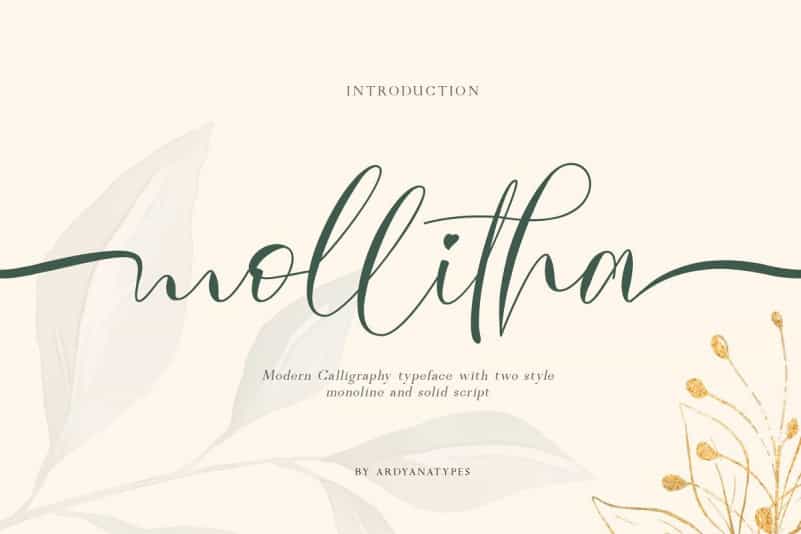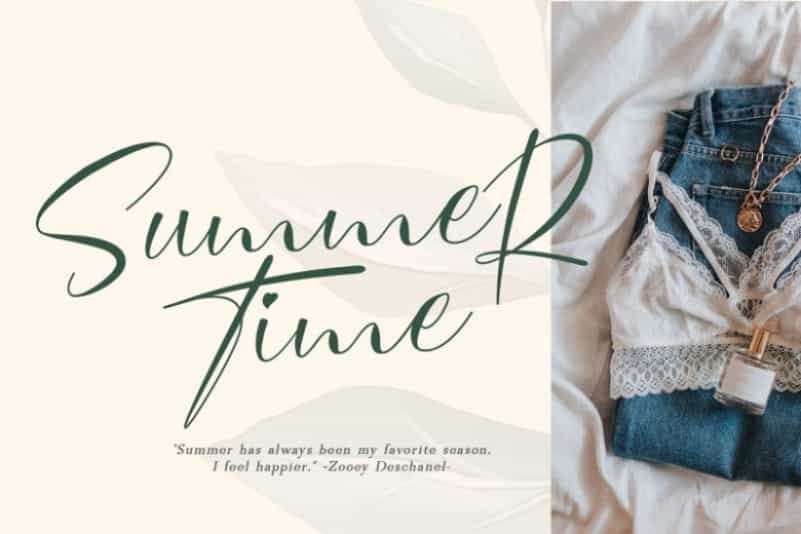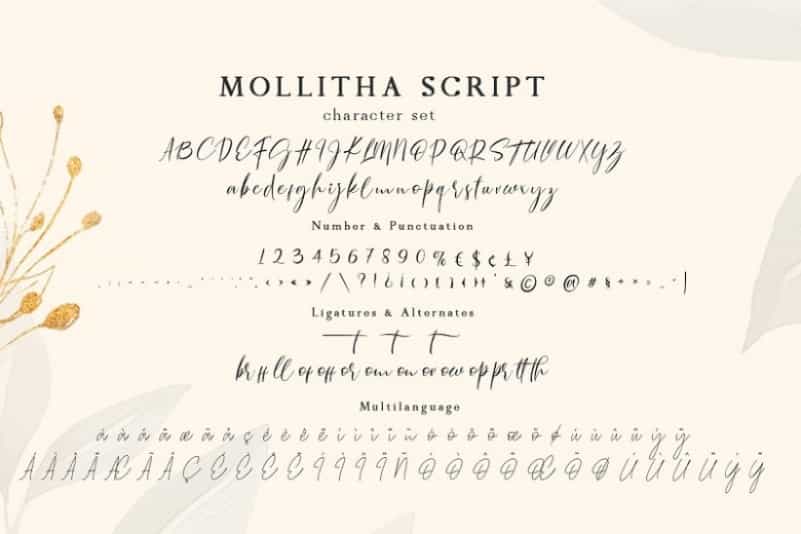
Discover Mollitha Modern Calligraphy Font, part of the Calligraphy collection—a versatile and unique font perfect for adding a personal touch to your projects. Download it for free and enjoy crafting designs with style, from invitations to social media posts. This font is available exclusively for personal use, giving you the freedom to create without limits. Unlock your creativity with Mollitha Modern Calligraphy Font today!
Mollitha is a font that was designed by adding special features to make it more beautiful and attractive. Mollitha also has 2 different types, but they have the same shape, meaning that you will be able to choose from them according to your design. Mollitha is a kind of calligraphy that was used in the modern type so Mollitha can be easily applied to any design like posters, signatures, logos, quotes and many more.